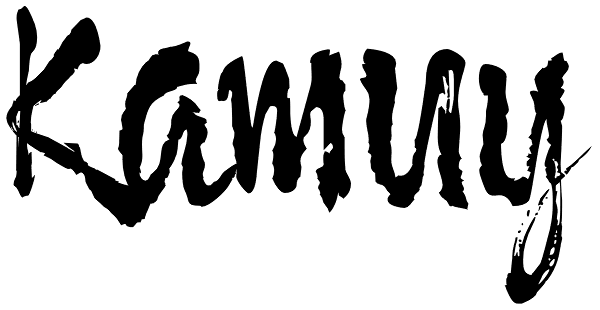
Kamuy
Kamui is a font designed by Carlos Fabian Camargo G. and used to write headlines. Its strategy makes it ideal for covers and advertisements with Japanese-style manga comics requiring latin style. Precisely its purpose was inspired by typographical...
Kamuy